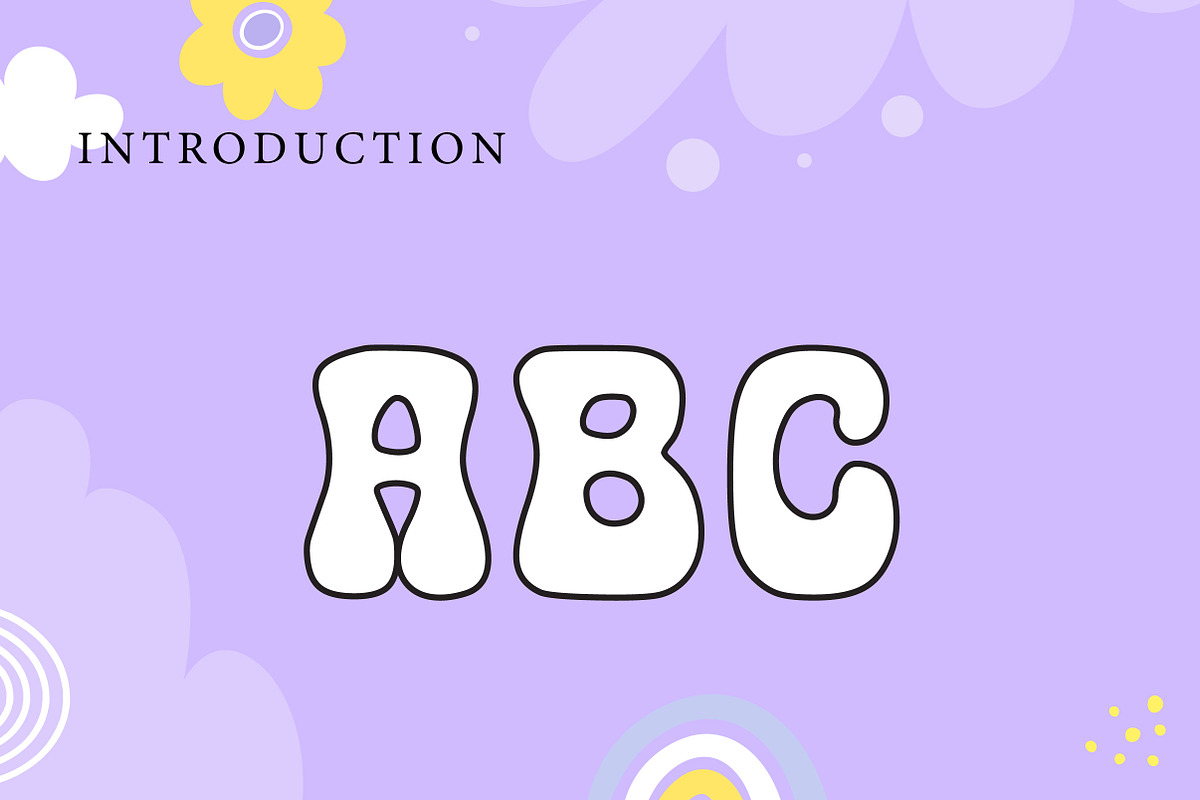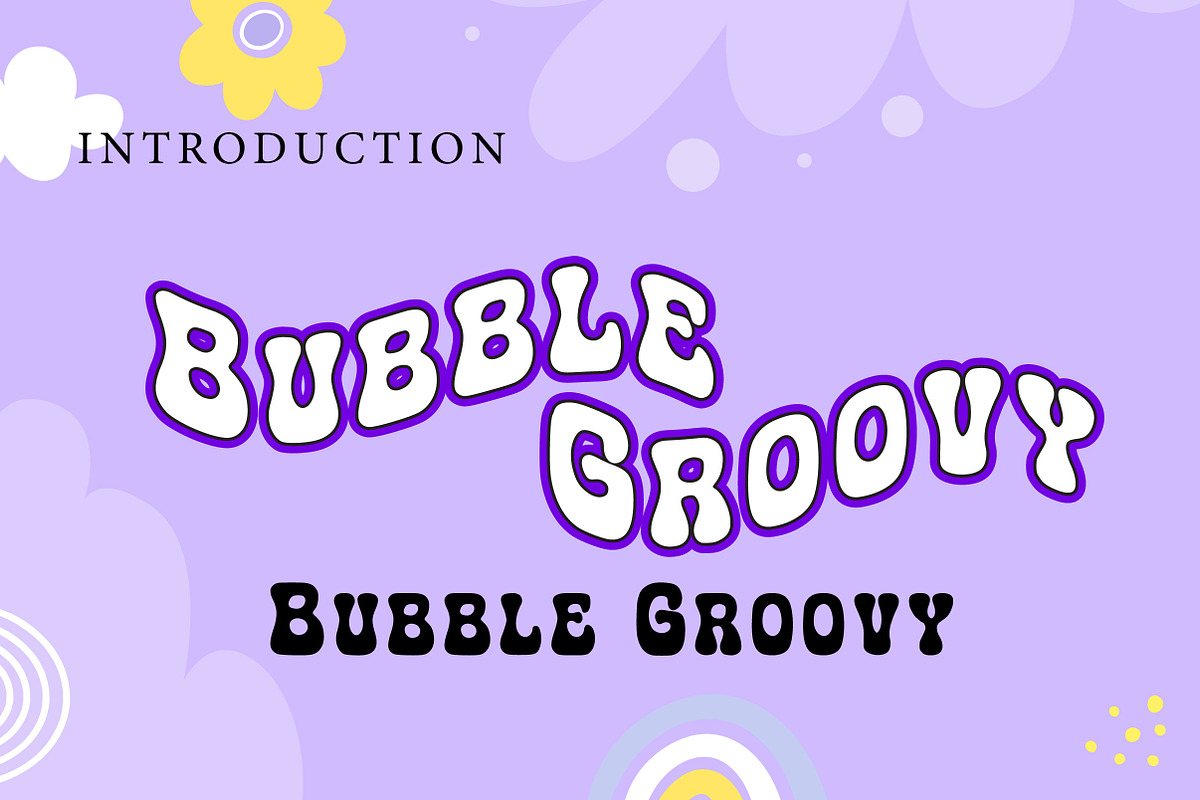
Bubble Groovy
Bubble Groovy is a fun and bold retro bubble display font inspired by classic 70s groovy typography. Featuring chunky rounded letterforms, soft curves, and a playful funky vibe, this font is perfect for posters, logos, packaging, stickers, t-shirts, album covers, social media graphics, and retro branding projects. Bubble Groovy brings cheerful nostalgia and eye-catching style, making it ideal for headlines and creative typography with a vintage feel.